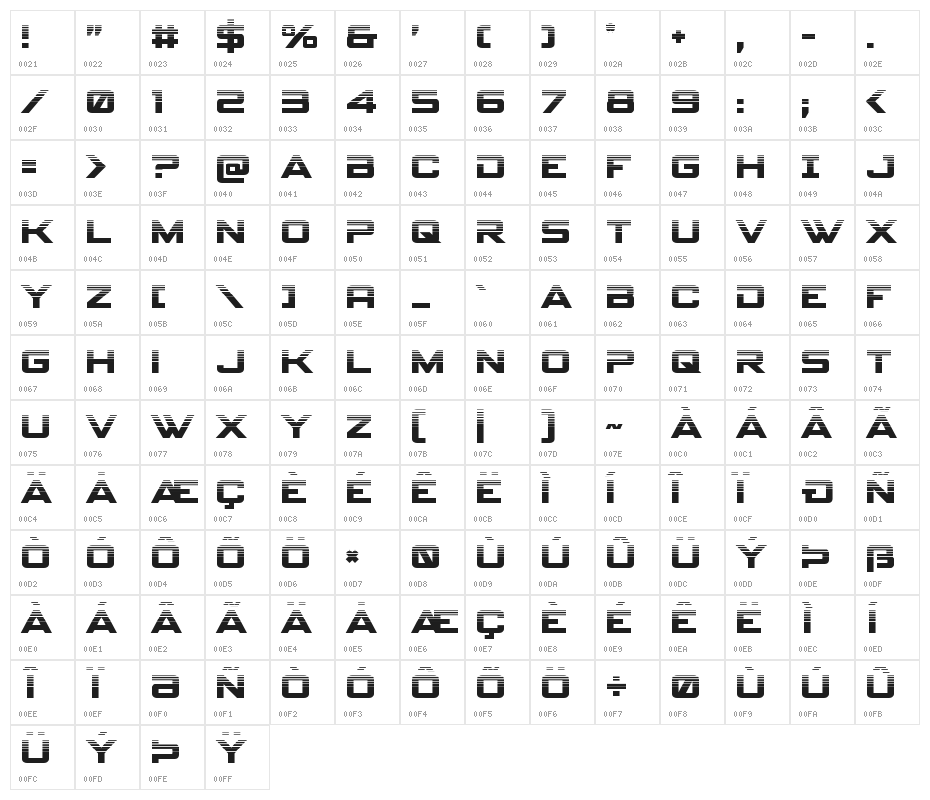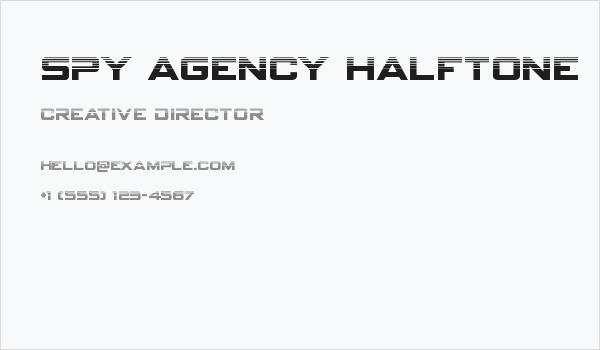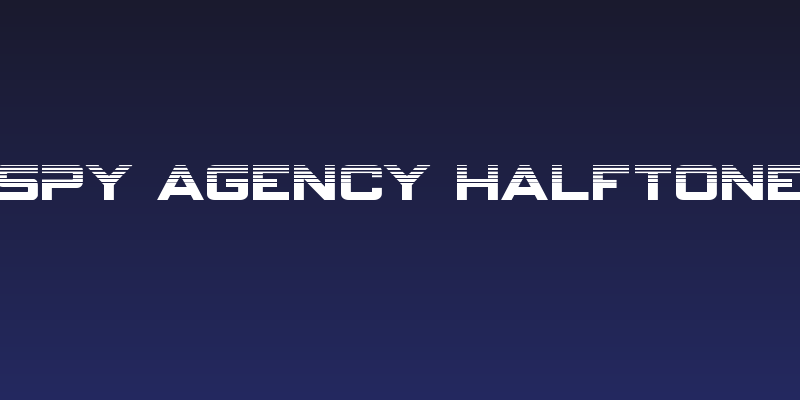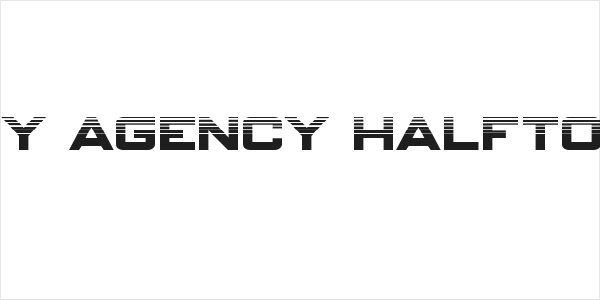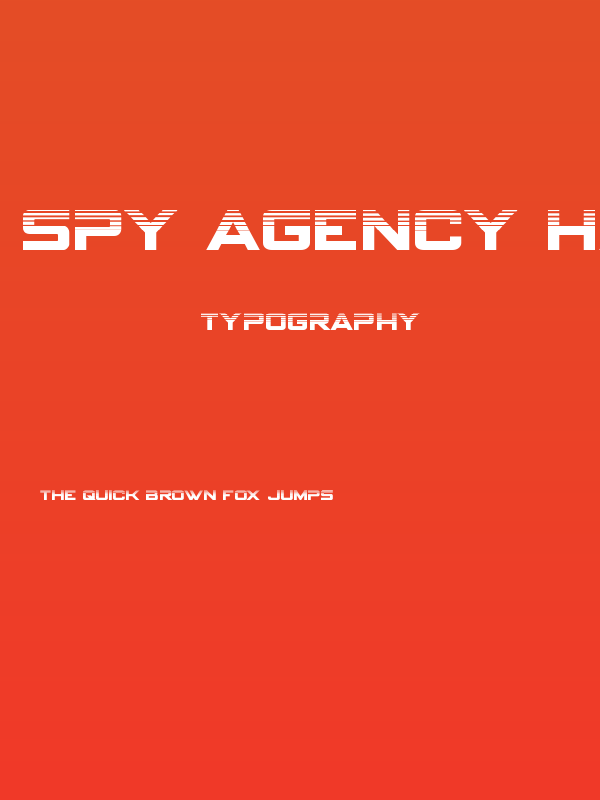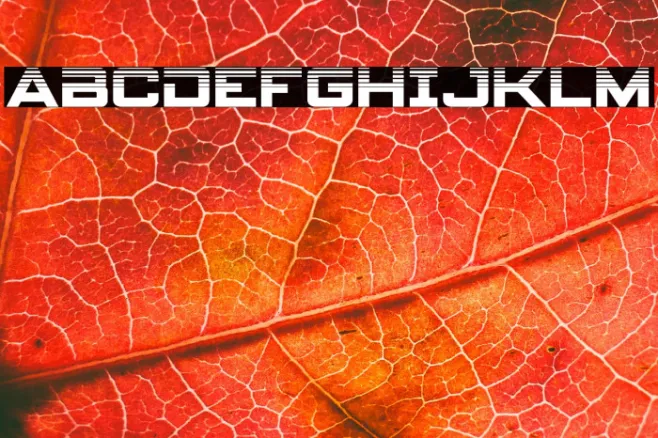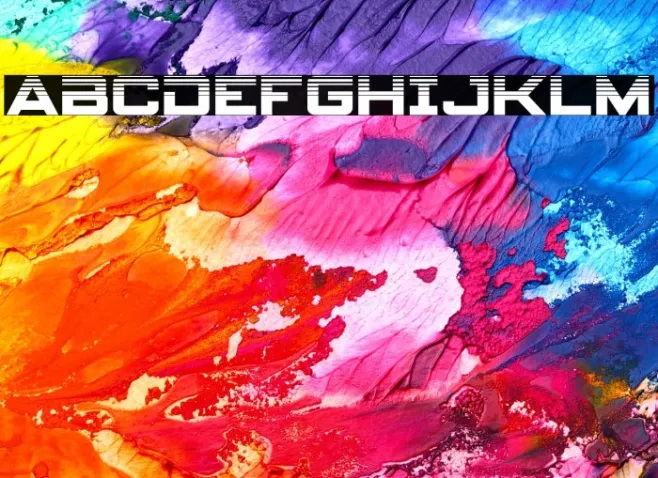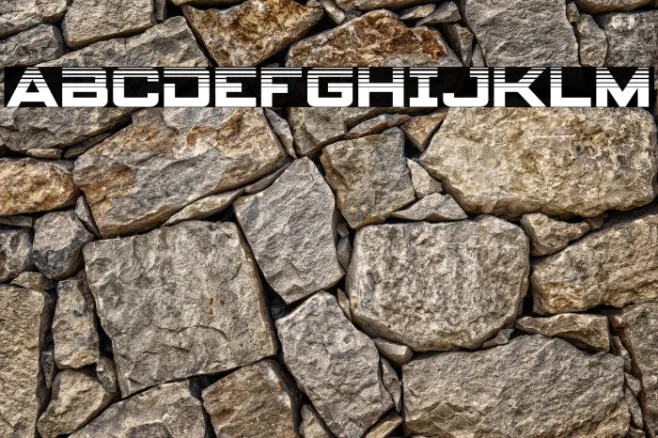
Spy Agency Halftone Font
Spy Agency Halftone Description
This font features a bold, futuristic design with a halftone effect that gives it a unique, digital appearance. The characters are constructed with a series of horizontal lines that create a sense of movement and dynamism. The uppercase letters are particularly striking, with sharp angles and a strong geometric structure. The numbers and special characters maintain this bold aesthetic, ensuring consistency across all glyphs. This font is ideal for projects that require a modern, tech-inspired look, such as digital interfaces, gaming titles, or sci-fi themed designs.
| Proposed Projects | Ideal for digital interfaces, gaming titles, sci-fi themes, and tech-inspired designs. |